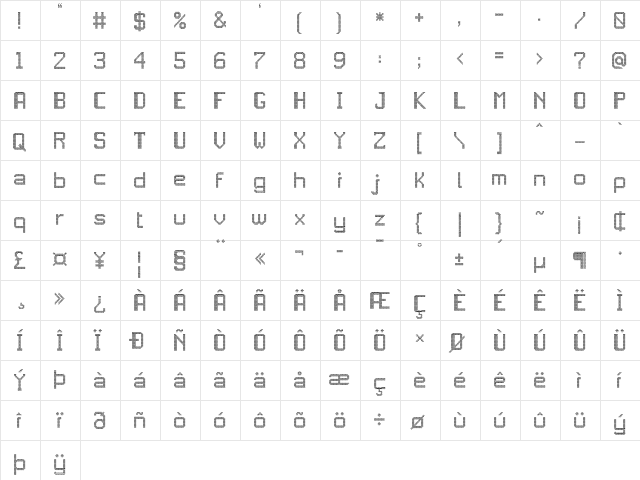
JD LED7 Regular
| Designer | Jecko Development |
Design Context for JD LED7 Typeface
JD LED7 is a composed and adaptable typeface that performs quietly and consistently across a wide range of design contexts.